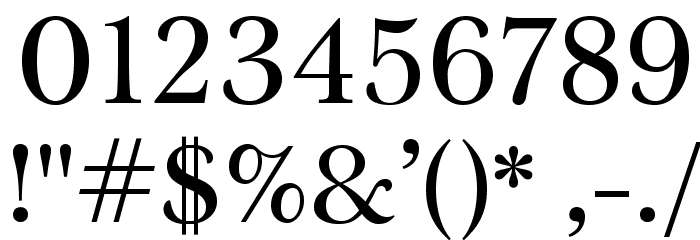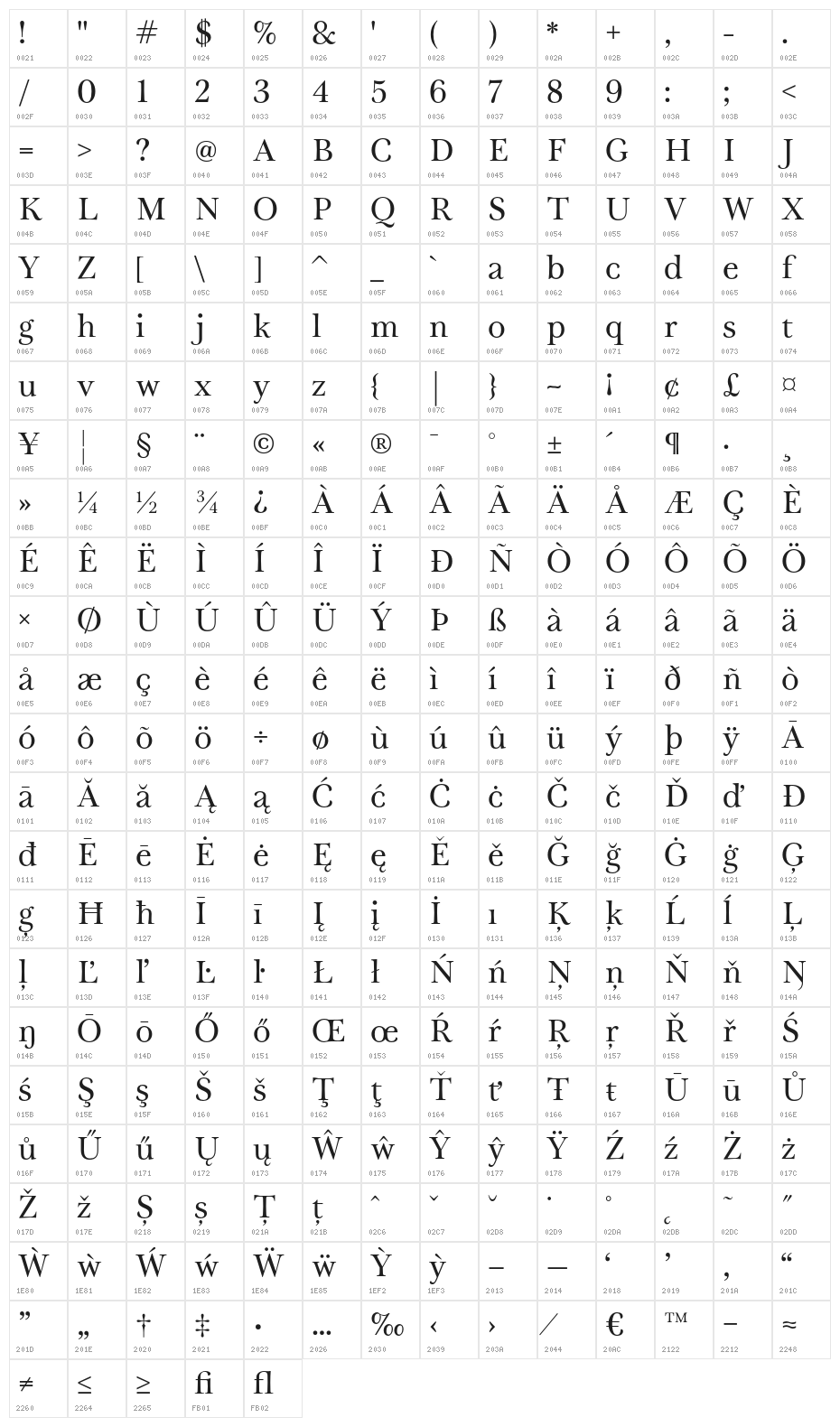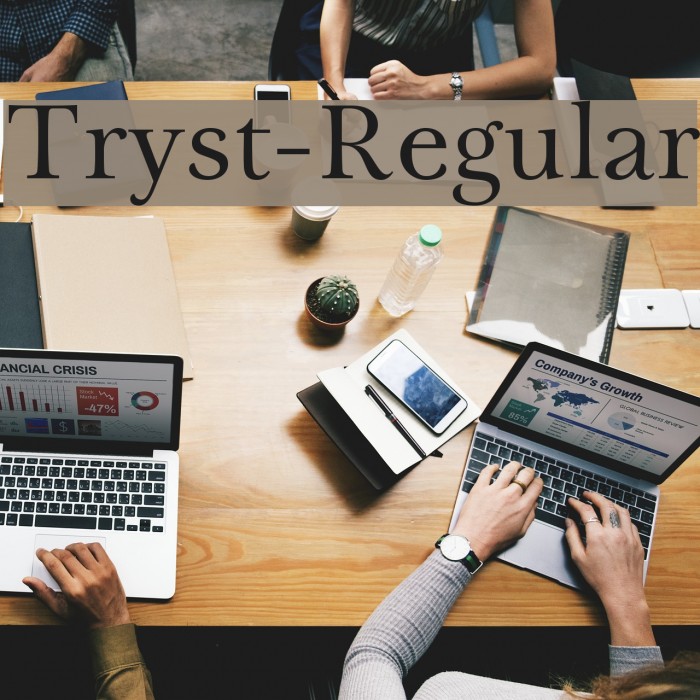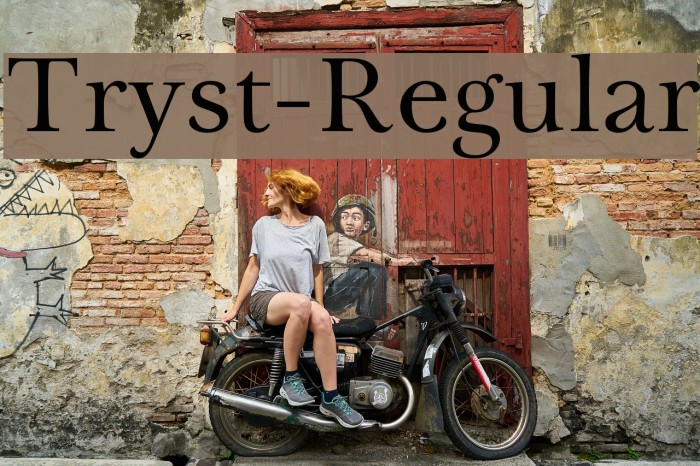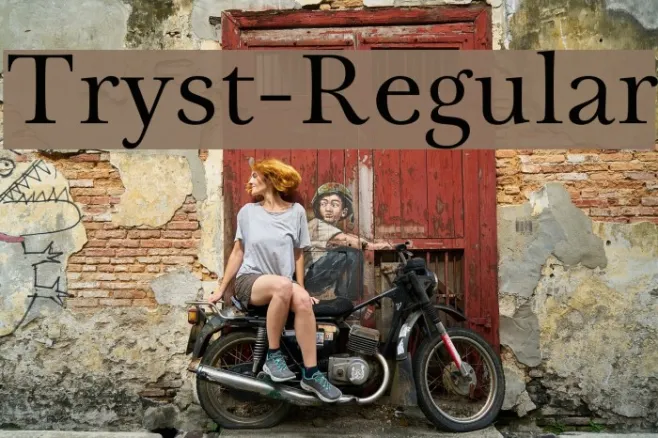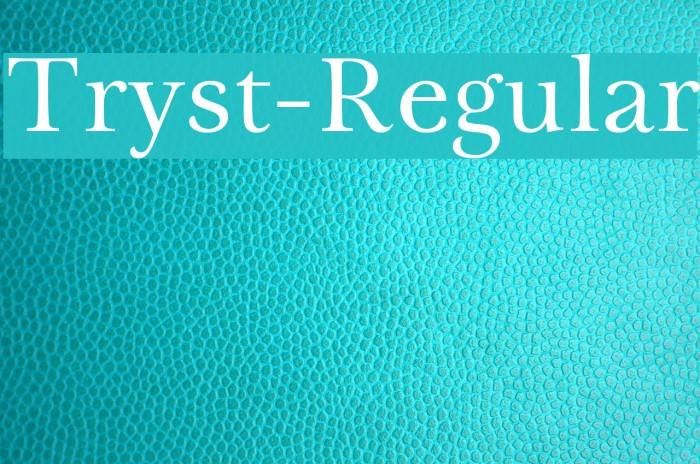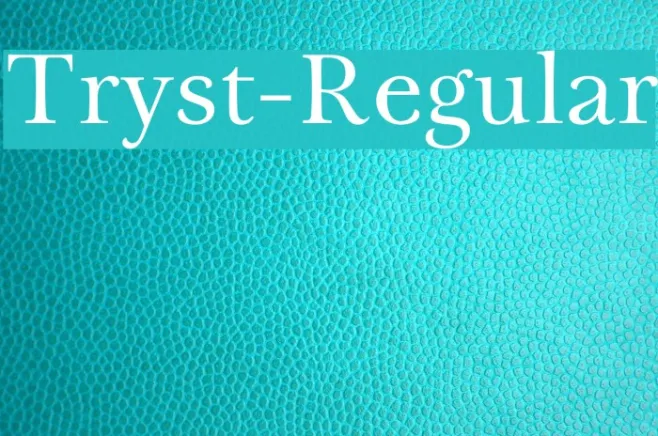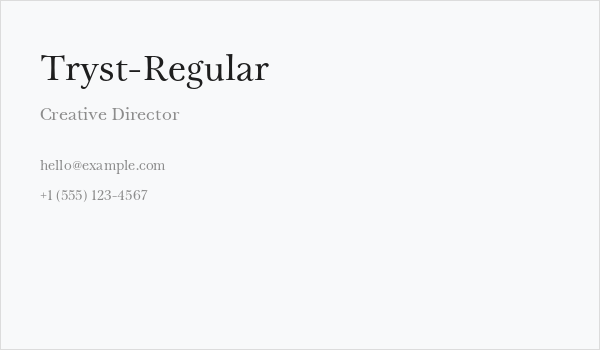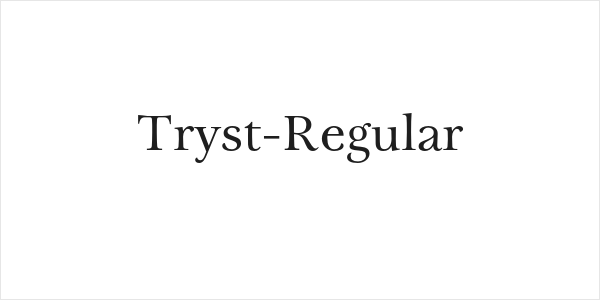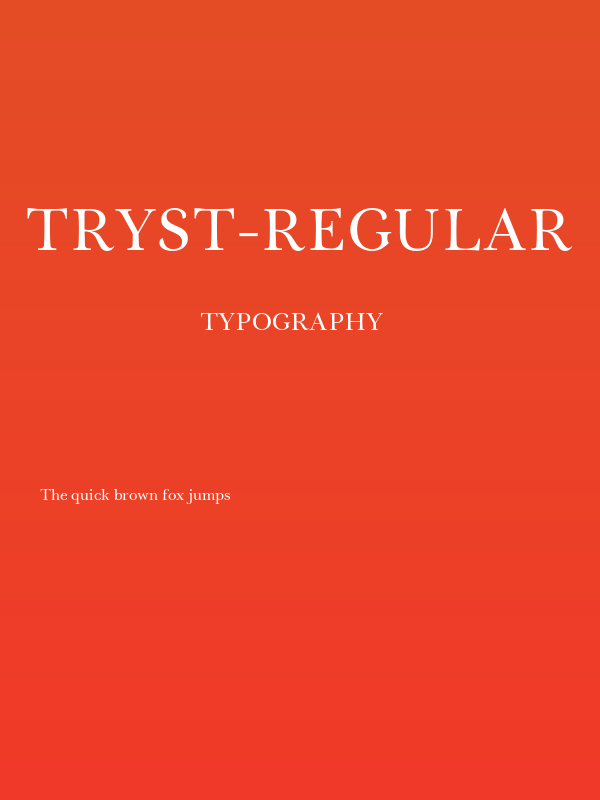
Tryst-Regular Font
Tryst-Regular Description
This font features a classic serif style with elegant, slightly curved serifs that give it a sophisticated and timeless appearance. The uppercase letters are well-proportioned and exhibit a traditional formality, while the lowercase letters maintain a consistent and harmonious flow. The numerals are clear and distinct, making them easily readable. Special characters are designed with the same attention to detail, ensuring a cohesive look across all glyphs. The overall design is balanced, with a medium contrast in stroke thickness that enhances readability without sacrificing style.